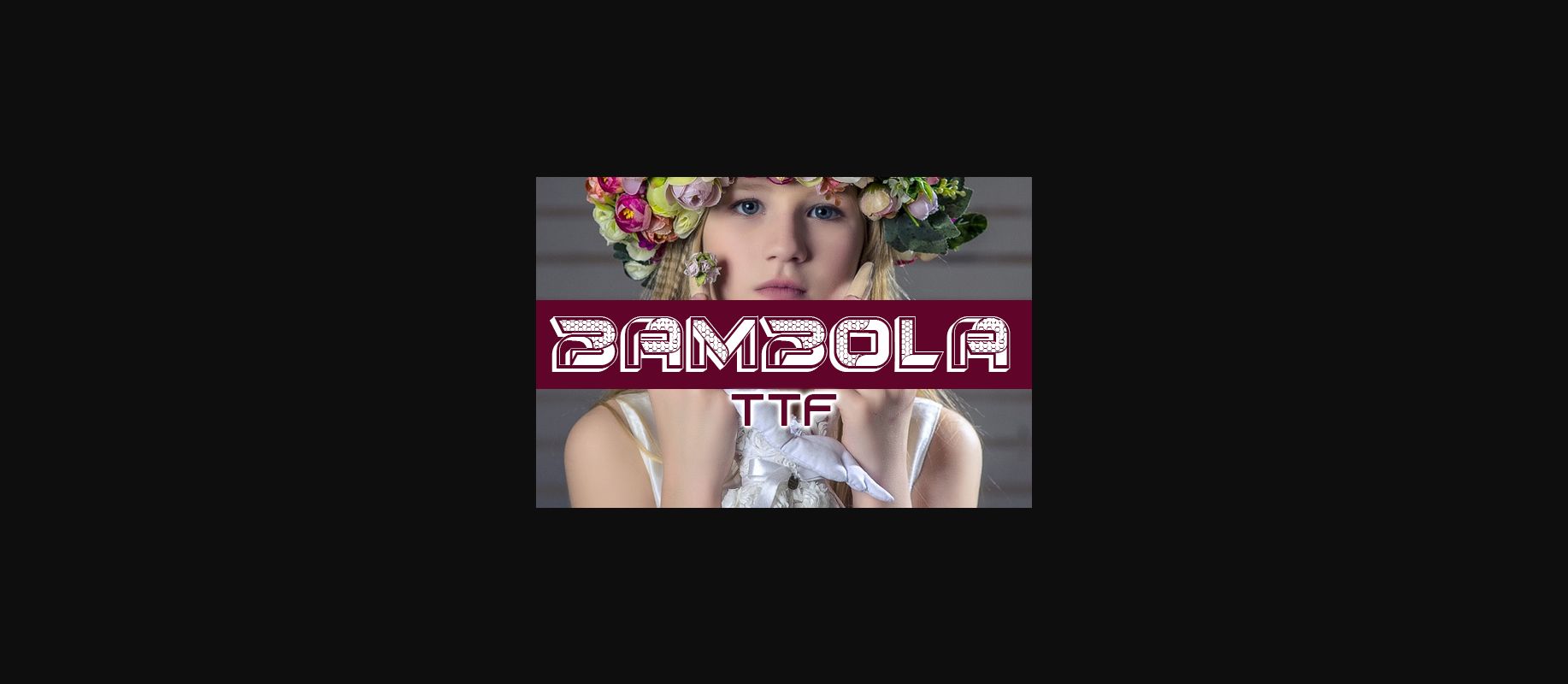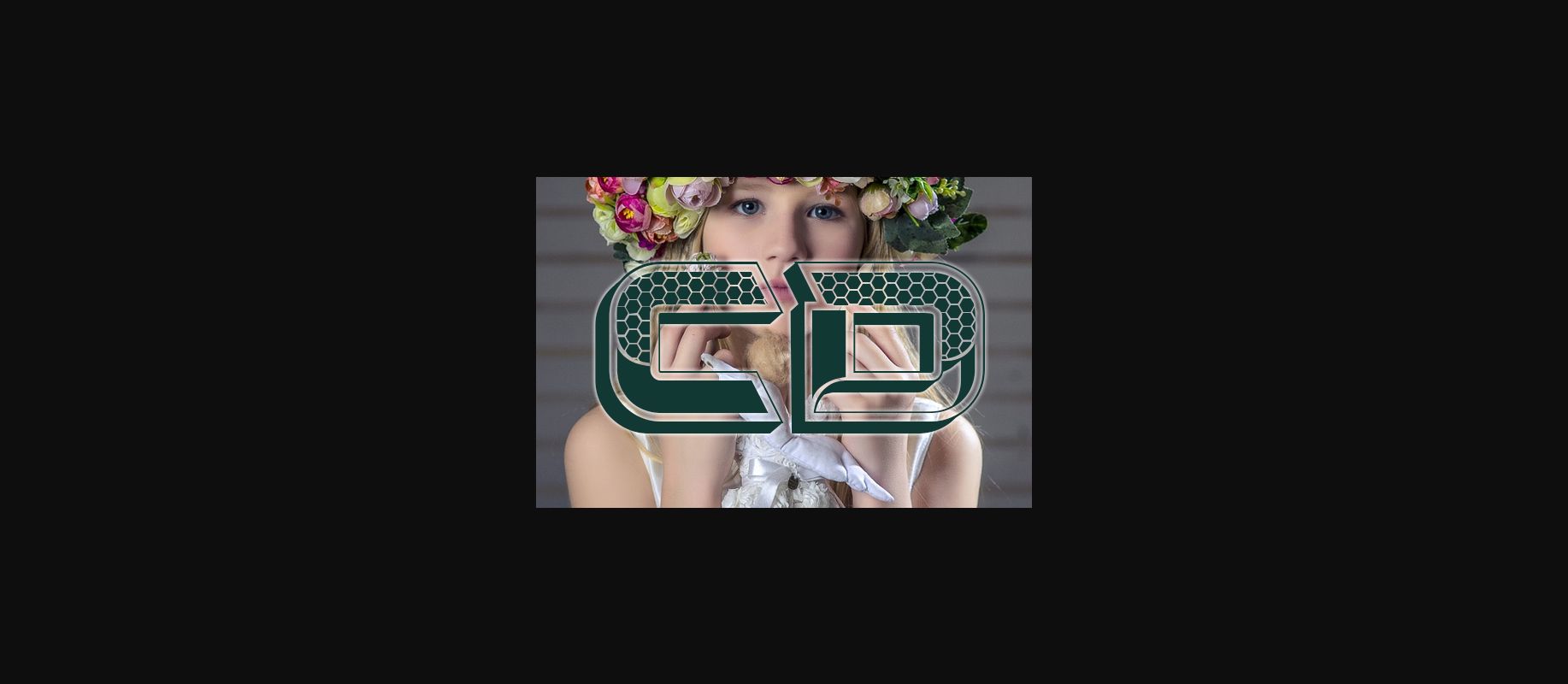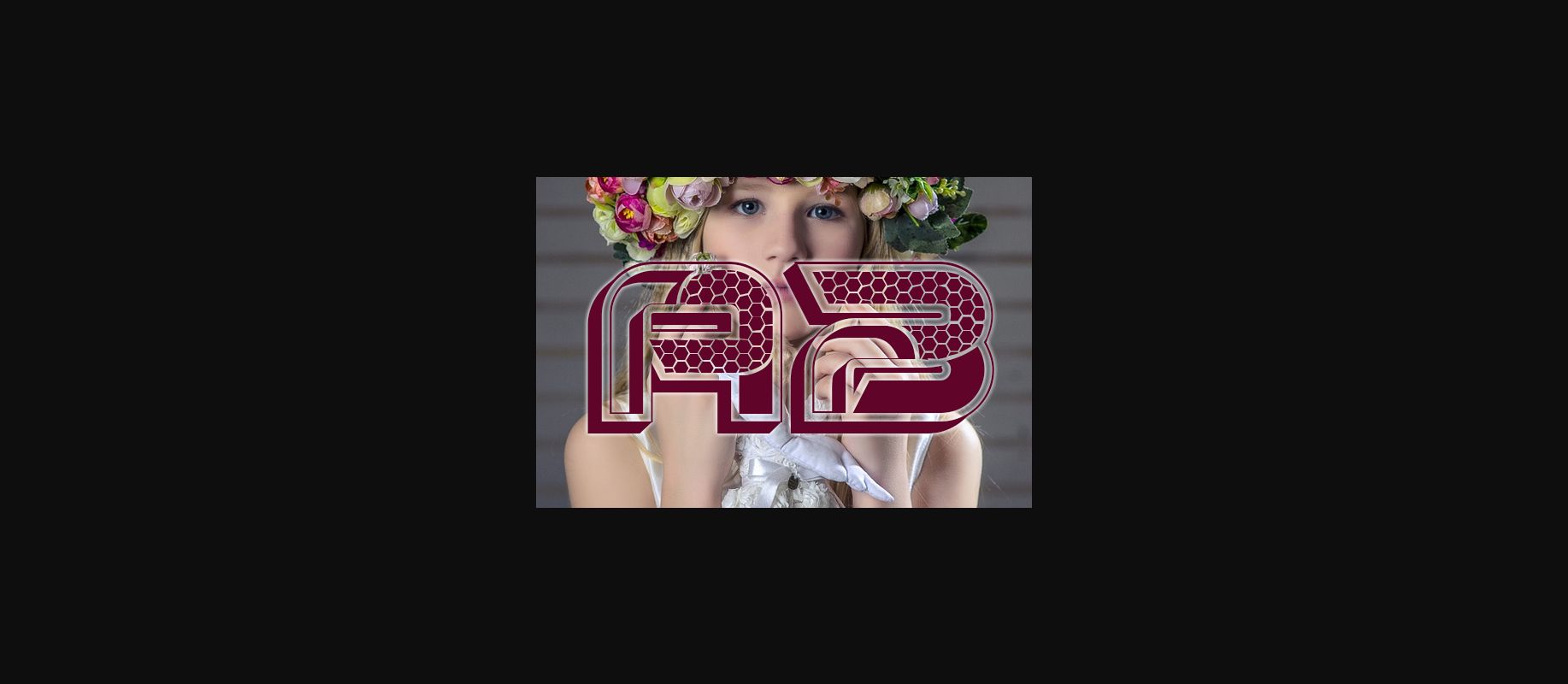
About Bambola Font
Bambola is an awesome decorative font that will look stunning on any poster, flyer, or print. Use this font for your designs and explore its endless possibilities.